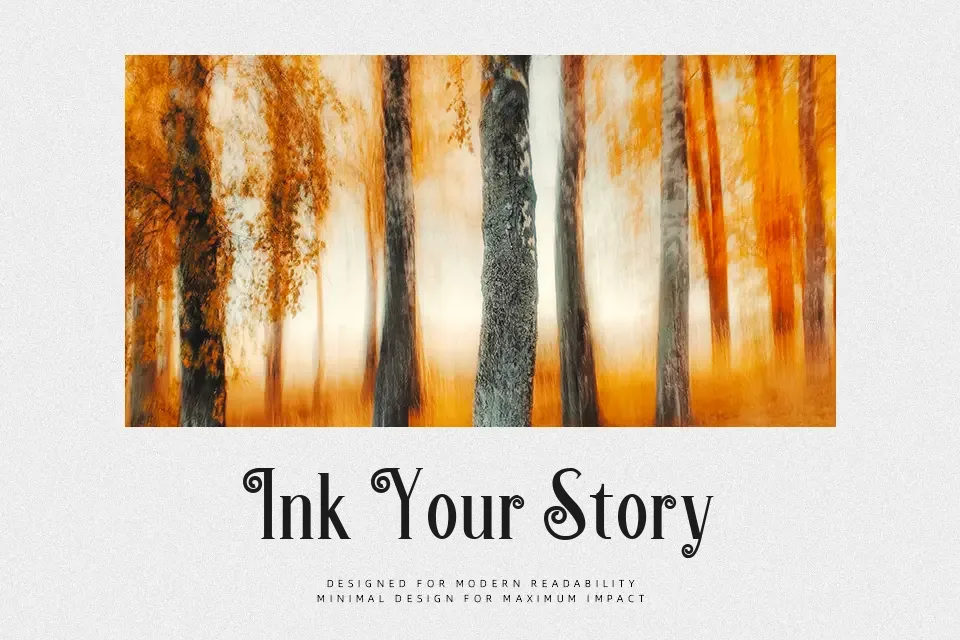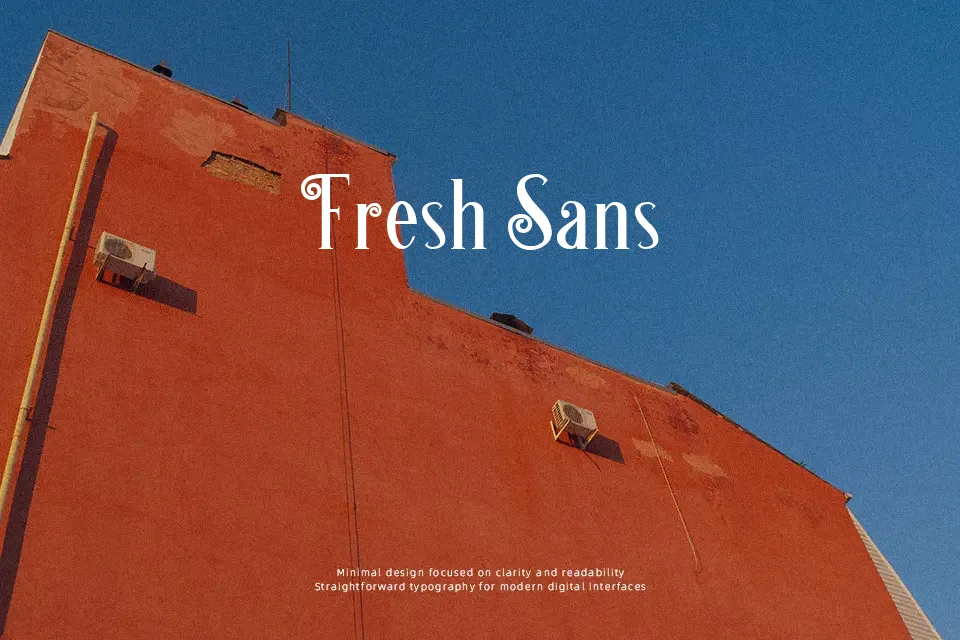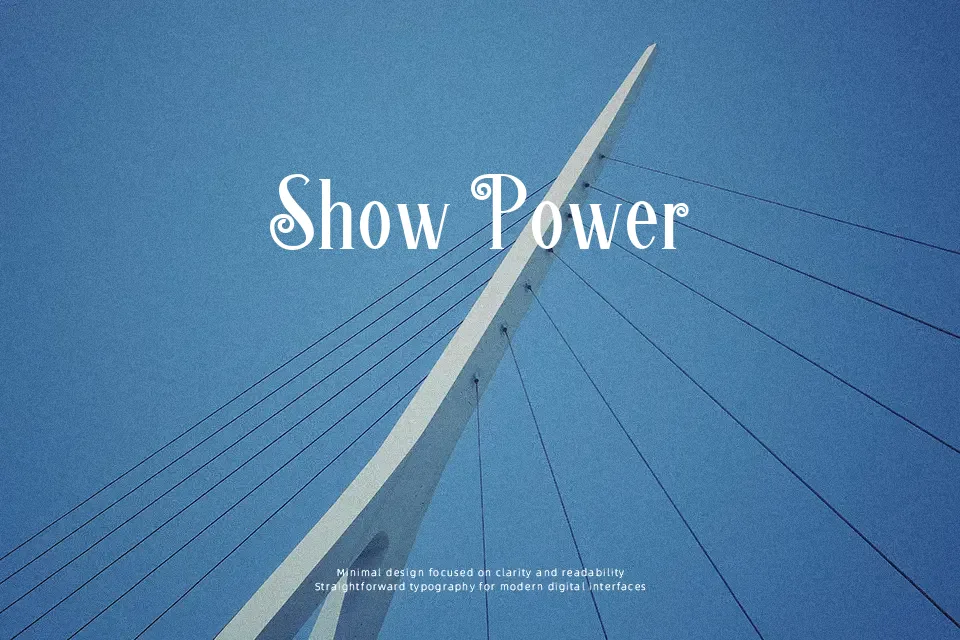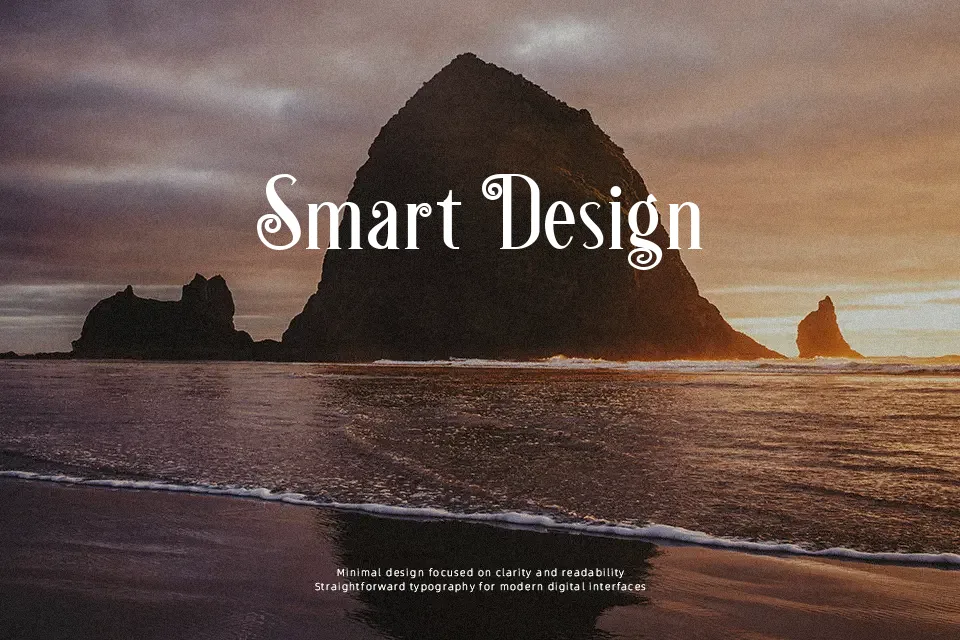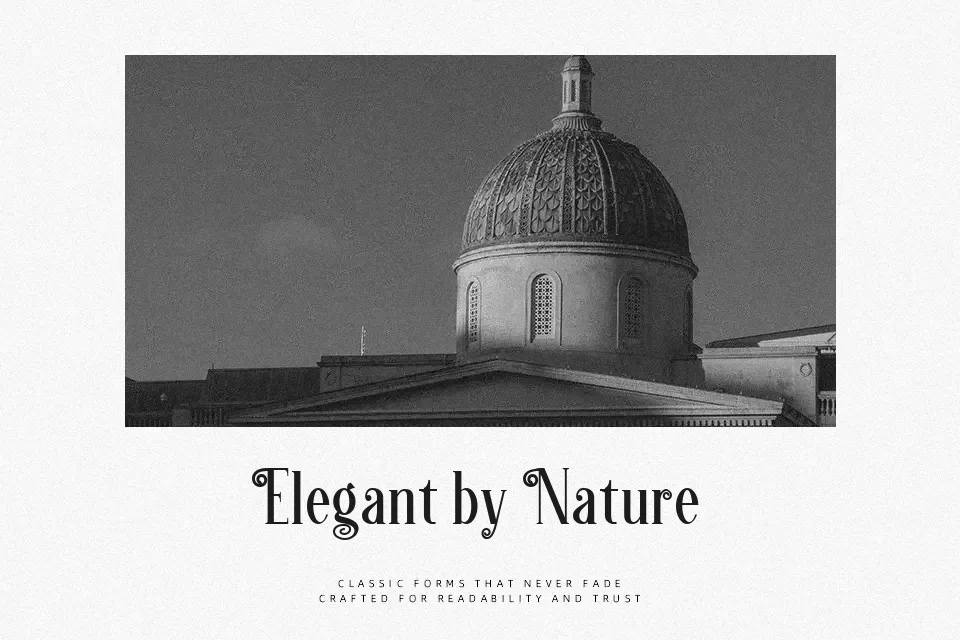
Chameleon Font
Chameleon Font features pronounced curly terminals, fluid swashes, and a distinct serif foundation that emphasizes decorative movement across every glyph. The letterforms exhibit moderate stroke contrast and relatively tight character spacing, creating a dense, interlocking visual rhythm across uppercase and lowercase sets. Proportions remain balanced, though the sweeping flourishes demand generous breathing room in layout compositions. This design functions exceptionally well for luxury cosmetic labels, music festival posters, editorial mastheads, and display covers. However, the intricate ornamentation causes fine details to blur at small caption sizes, making the typeface unsuitable for continuous body text. The pronounced decorative flourishes maintain great distinction when typeset at generous headline scales.
Best For: luxury packaging labels, editorial magazine headlines, music festival posters, boutique apparel branding
Not Ideal For: continuous body text, mobile user interface elements, dense technical manuals, small legal disclaimers
Perfect for branding, headline, and invitation, with a artistic and decorative style.